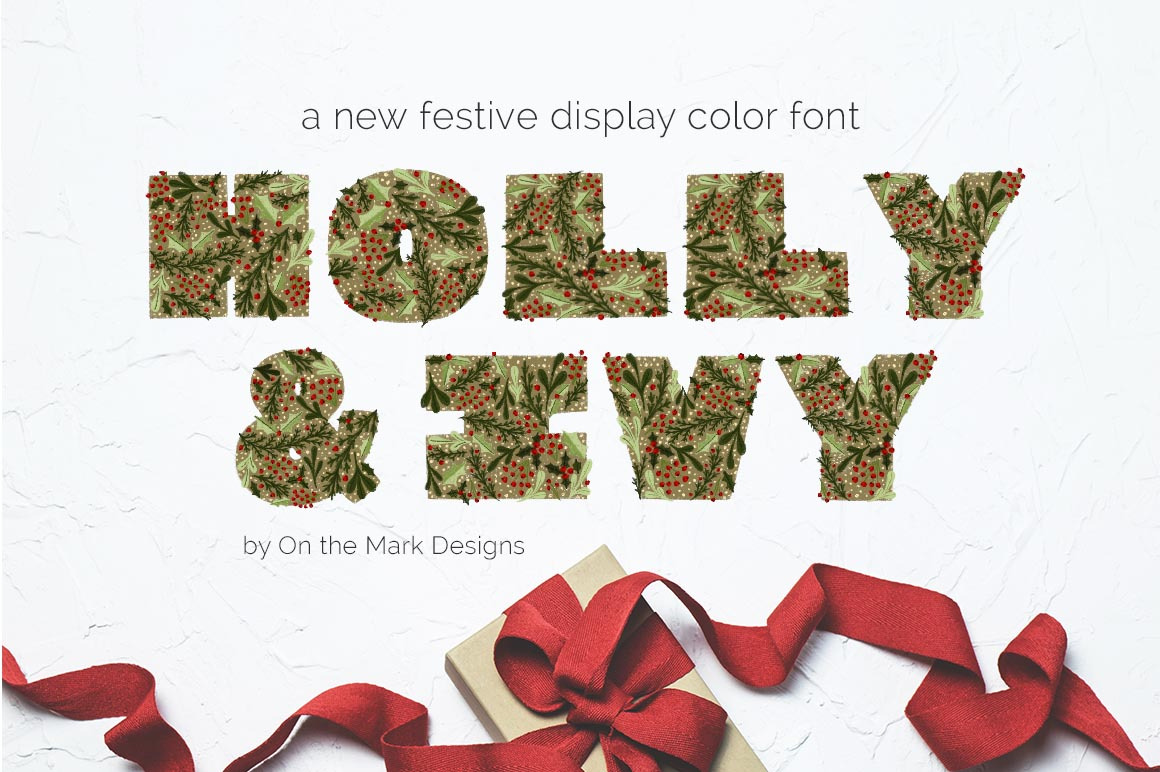
Holly & Ivy Color Display Font
Holly and ivy have been a huge source of inspiration for me this Christmas season! When I created these letters to go on a Christmas card, I knew I needed to make them into a font for all of you festive monograming needs! The delicate features of each letter create a wonderful texture and depth that will impresses your loved ones when they get your Christmas card this holiday season!
- Full set of upper case letters
- Ampersand